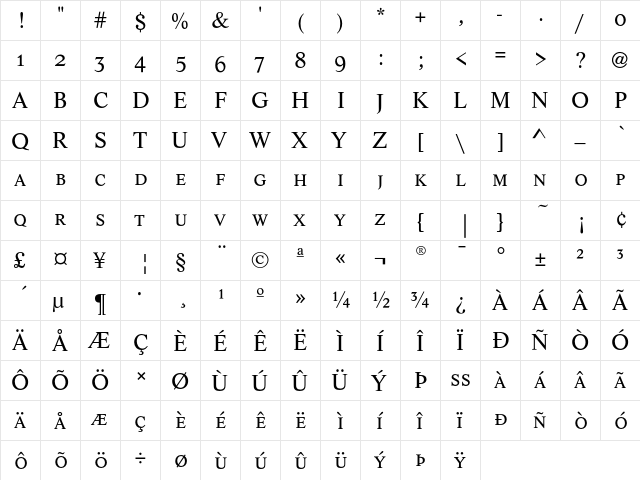
LifeSCEF Regular
Design Context for LifeSCEF Typeface
LifeSCEF is a composed and adaptable typeface that performs quietly and consistently across a wide range of design contexts.
Pro Tip: Pair LifeSCEF with a font of contrasting weight or personality to build a more expressive typographic hierarchy.